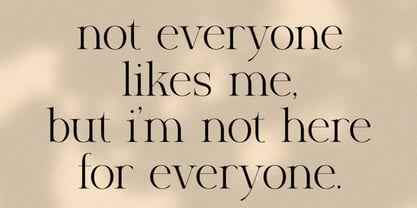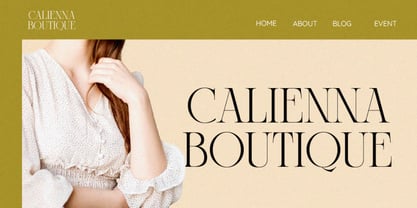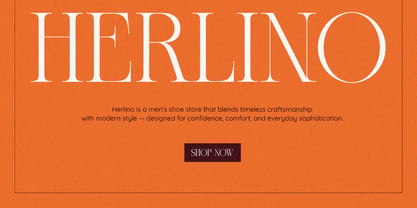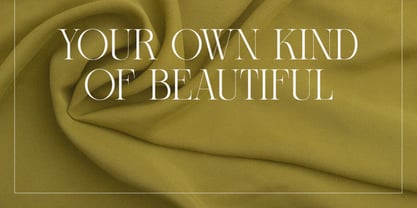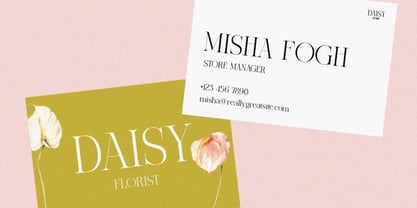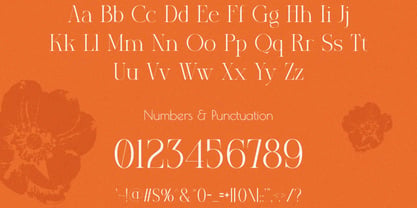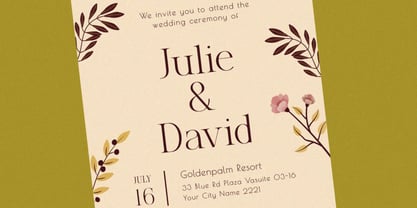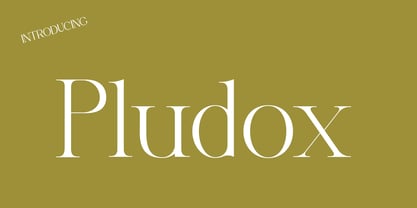
Pludox
by Hasnat Studio
The Pludox Font Family was designed by Hasnat Khan and published by Hasnat Studio. Pludox contains 1 styles. More about this family
Pludox is a luxurious and elegant serif font crafted for designers who seek sophistication, style, and timeless beauty in their typography. Featuring graceful curves, high-contrast strokes, and refined serif details, Pludox effortlessly combines classic elegance with contemporary fashion aesthetics. Every letter is carefully designed to create a premium visual experience, making this typeface an exceptional choice for luxury branding, editorial layouts, and high-end creative projects.
With its structured serif forms and subtle decorative flourishes, Pludox brings a polished and sophisticated personality to logos, magazine covers, packaging, wedding stationery, and marketing materials. The font communicates confidence, exclusivity, and refinement while maintaining excellent readability across both large display settings and detailed editorial applications.
Whether you're building a luxury fashion brand, designing a boutique identity, creating elegant invitations, or crafting attention-grabbing magazine headlines, Pludox delivers the perfect balance of beauty, clarity, and modern elegance.
Key Features:
• Elegant Luxury Serif Design: High-contrast strokes and refined letterforms for a premium appearance.
• Fashion-Inspired Typography: Designed for luxury branding, editorials, and sophisticated visual identities.
• Striking Serif Details: Sharp terminals and elegant contrasts create stunning display typography.
• Decorative Flourishes: Subtle swashes and stylish details add personality and charm.
• Excellent Readability: Balanced spacing and proportions ensure clarity at any size.
• Uppercase & Lowercase Letters: Complete character set for versatile design applications.
• Numbers & Punctuation: Essential symbols for professional typography projects.
• PUA Encoded Characters: Easily access special characters without additional software.
Perfect For:
• Luxury Branding & Logo Design: Create elegant and memorable brand identities.
• Fashion Labels & Beauty Brands: Ideal for cosmetics, apparel, jewelry, and lifestyle products.
• Editorial & Magazine Design: Perfect for headlines, covers, and premium layouts.
• Wedding Invitations & Event Stationery: Add timeless sophistication to special occasions.
• Packaging & Product Labels: Enhance premium products with luxurious typography.
• Social Media & Marketing: Design captivating content that stands out with elegance.
• Posters & Advertising Campaigns: Create eye-catching headlines with refined style.
Elevate your creative projects with Pludox—a luxury serif font crafted for fashion branding, editorial design, premium packaging, wedding invitations, boutique logos, magazine titles, and sophisticated marketing materials. Bring timeless elegance and modern refinement to every design with Pludox.
Designers: Hasnat Khan
Foundry: Hasnat Studio